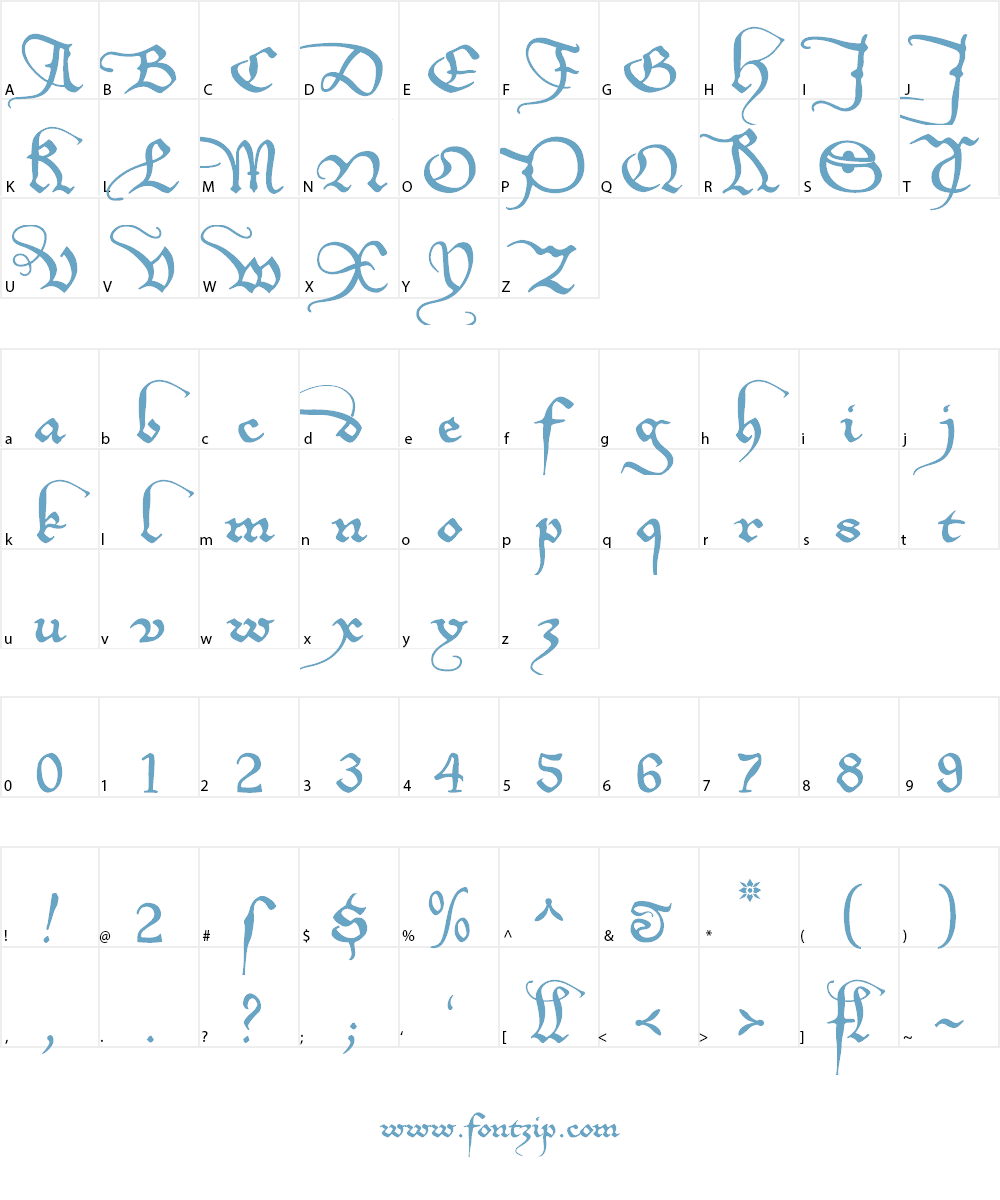
Ruling from 1346 to 1378, the German emperor Charles IV was the most glamorous scion of that shortlived house of Luxembourg, which showed such a distinct drive eastward. His grandfather had come out of France to be German emperor, his father was king of Bohemia, and his younger son Sigmund -- last male of the family -- would, by his own wish, be buried at Oradea (aka Nagyvárad, aka Großwardein), which belongs to Romania today, but was then (1437) an eastern outpost of Sigmund's beloved kingdom of Hungary. Not that the direction mattered much, though. They were real vultures, trying to take hold of anything within their reach. At one time, Charles and his father even battled in northern Italy, bent on creating another kingdom for themselves there.
Around the year 1350, Charles IV bothered to compose his own biography, no doubt intending to spare historians the pains of doing much research into his life and deeds; and historians have gratefully copied from his text for centuries, assuring posterity of how he has been such an incomparably charismatic, cultivated, peace-loving, just, wise, skilled, successful, and deeply religious ruler. For all we know, he was indeed doing miracles in his inherited kingdom of Bohemia, above all at Prague, having the cathedral built, founding the university, and shaping the city into the fascinating capital that can still be admired today. And yes, he lavished gifts on artists and intellectuals, who sung his praises in return.
As a matter of fact, Charles needed money to maintain his style of life and ruling, and the ways in which he got it, were pure evil. Let's not dwell upon his merits in creating and advancing the German city leagues he had expressly forbidden, by pawning each and everything -- e.g., whole dukedoms, as well as free cities -- to the highest bidder (who would then, of course, try to profit from the deal by imposing tremendous taxes on his new subjects); those leagues were sometimes quite successful in fighting off the consequences of the emperor's greed. Let's rather contemplate another piece of news, which was unearthed by modern history: In the month of June 1349, Charles entered into secret negotiatons with the city council of Nuremberg, concerning the disposal of the estates of Nuremberg's Jewish citizens, in case of a pogrom. Some months later, that pogrom took place, no doubt after being carefully organized by the city council. Nearly all the Jews at Nuremberg were killed, the booty being then divided between the killers and their gracious sovereign. Actually, this oh so pious ruler couldn't lose, with all the killing of Jews that went on during his reign. The Jews being his immediate subjects, anyone who killed a Jew owed the emperor money, and whenever a city entered on a pogrom without sagely negotiating beforehand, Charles pounced upon them in impressive protector mode, threatening retributions, and cashing in exorbitant fines ... what a hypocritical, cunning rascal.
If historians are to be trusted, Charles' greatest feat consisted in persuading the electors to establish his son as his successor in the office of Roman king. Indeed. The son in question was glorious Václav/Venceslas of WirWenzlaw renoun... Though, considering his father's complete lack of a conscience, and his younger brother Sigmund's treacherously declenching the terrible Hussite wars, by ingeniously redefining the notion of safe conduct -- e.g., 'you'll reach Constance unharmed, but if they burn you at the stake there, I wash my hands of you' --, it has to be admitted that Venzlav, for being obnoxious like the plague, may not have been, by far, the worst of the whole lot.
Is there anything I like about Charles IV? Why, alas, yes. The charters of his chancery tend to be stunningly elegant -- a cultivated prince's pride, for sure, and a font maker's dreams come true. In the end, that market privilege granted to the city of Hambourg, in 1359, proved irresistible. Beauty and morality entering into conflict, beauty won, as always, producing the EtBoemieRex (= 'And King of Bohemia', a quote from the document) font. However, conscience is still refusing to give in; and that's why I've inflicted this soap box monologue on all who have read thus far. Thank you for your forebearance.
On the number sign of the EtBoemieRex font, you'll find a long s, as usual. The other special characters are
an alternate f on the 'plus' sign, since the normal one is at war with the i, and a lot of accented characters
an alternate d on the 'bar' and 'broken bar' sign, less bulky than the normal one
a double l on the left bracket
an fl ligature on the right bracket
a swashed m on the left curly bracket, to be used at the end of a word
a swashed n on the right curly bracket, to be used at the end of a word
a long s t ligature on the long s sign
an ft ligature, and a swashed t on the fi and fl keys. If these characters aren't reachable on your computer, you might try the masculine and feminine ordinal indicators, or the 'less-than or equal to' and the 'greater than or equal to' signs.
and, just in case, if you really need a 'plus' sign with this font, you'll find it on the 'plus/minus' sign.
Update 2010 has redesigned all of the composite glyphs (correcting the dcaron, Lcaron/lcaron, and tcaron), and enlarged the dashes.